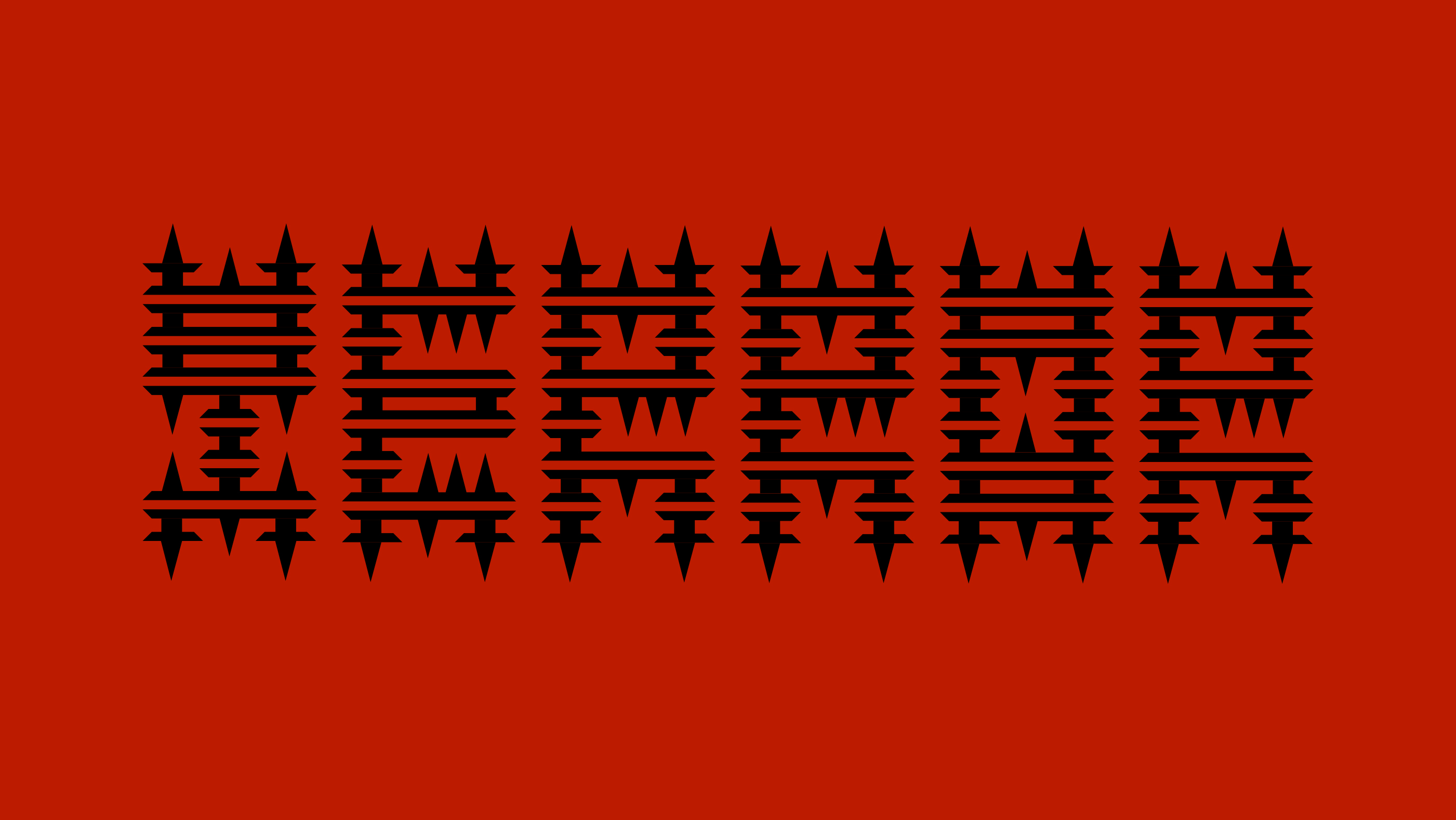
Terror
I wanted to create a simple letterform enriched with custom details. Inspired by light filtering through window blinds, I transformed the idea into repeated vertical forms and razor-sharp points. Combined with a classic colour palette.